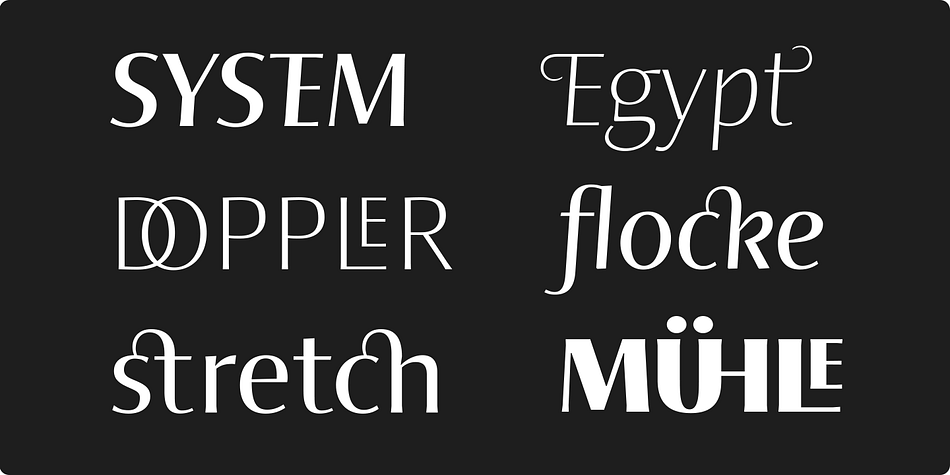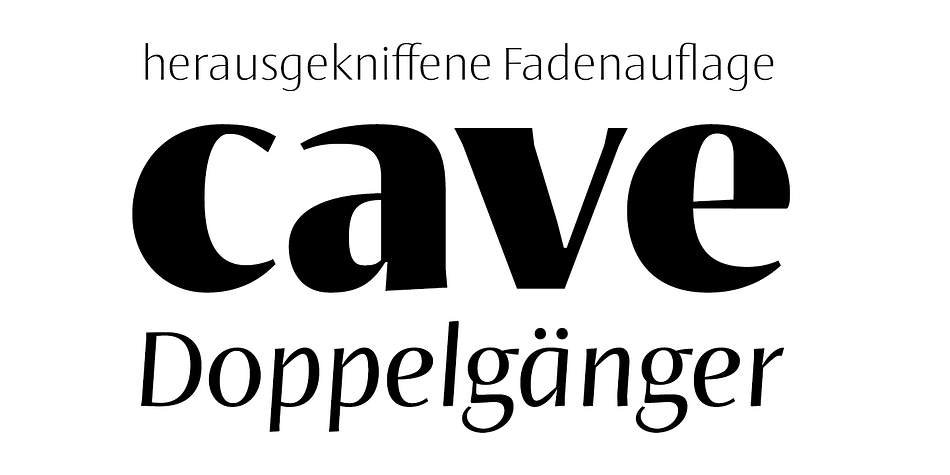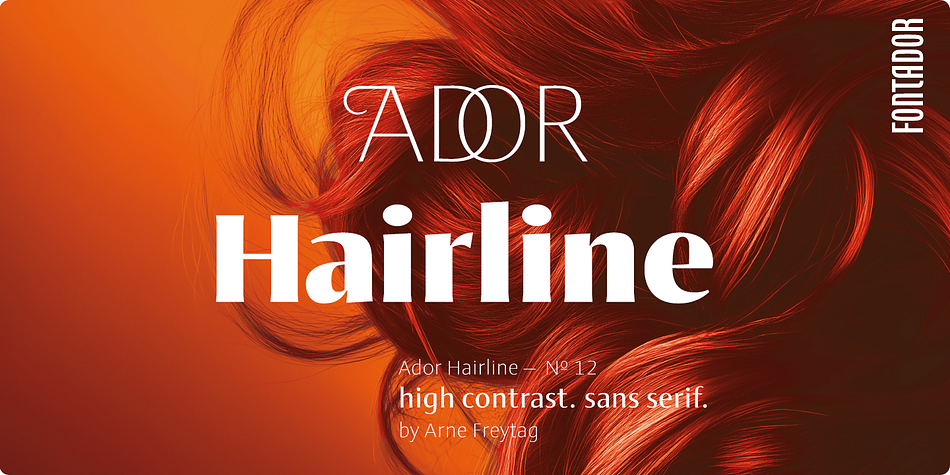
Ador Hairline
Designed by Arne Freytag, Ador Hairline is a sans serif font family. This typeface has fourteen styles and was published by Fontador.
Ador Hairline is the high contrast version of Ador. A humanist sans serif that falls in the “evil serif” genre, especially designed for contemporary typography and comes up with 7 weights from extralight to black plus true italics and 293 ligatures and initial letters. A large x-height not only creates space in the letters for extra-bold styles, but also lends Ador Hairline an open and generous character in the more narrow and semi-bold versions.
The nice balance between sharp ink trapped and soft, dynamic shapes helps to work in small sizes. Diagonal stress, angled finials and the 4 degree true italic styles give Ador Hairline a dynamic look. The font contains 1.026 glyphs and a wide range of flexibility for Latin language support for every typographical needs.
Ador Hairline is a contemporary sans serif typeface, special for logotypes, brands, magazines editorial and advertising uses.